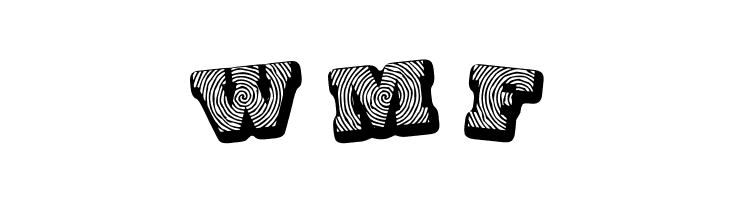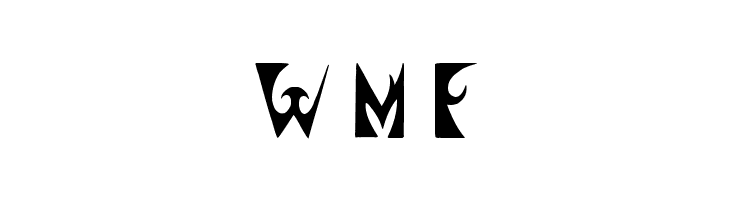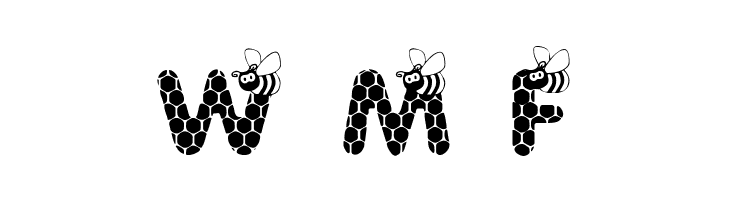
A decorative font with characters encased in butterfly designs, perfect for whimsical projects.
A whimsical font with characters encased in cartoon bear figures, perfect for playful designs.
A playful font with characters inside friendly ghost shapes, perfect for whimsical designs.
A whimsical font with characters inside bunny designs, perfect for festive projects.
A bold, playful font with thick strokes and rounded edges, ideal for impactful designs.
A playful, bubble-like font with interconnected circles, ideal for creative projects.
A whimsical font with unicorn and magical motifs, perfect for fantasy themes.
A bold, geometric font with a retro aesthetic, ideal for impactful designs.
A bold, dripping font with a melting effect, ideal for horror themes.
A bold, blocky font ideal for impactful headlines.
A playful, rounded font with a light and airy feel, perfect for adding personality.
A bold, decorative font with a Western flair, ideal for headlines and themed designs.
A spooky, playful font with jagged, uneven letters ideal for Halloween themes.
An elegant serif font with high contrast and italic style, perfect for sophisticated designs.
A bold, outline font with a dripping, eerie style perfect for horror themes.
A bold, dripping font ideal for horror and Halloween themes.
A bold, jagged font with dripping edges, ideal for horror themes.
A bold, outlined font with a strong geometric structure, perfect for impactful designs.
A bold, jagged, and distressed font ideal for horror-themed designs.
A spooky, hand-themed font with bold, angular letters perfect for horror designs.
A bold, horror-themed font with a dripping effect, perfect for spooky designs.
A bold, condensed font with a modern and clean aesthetic, perfect for impactful headlines.
A bold, heart-themed font perfect for romantic and playful designs.
A spooky, decorative font with jagged edges and eerie cutouts, perfect for Halloween themes.
A bold, playful font with a unique spiral pattern, ideal for creative projects.
A bold, decorative font with a wood grain texture, ideal for rustic and organic designs.
A creepy, dripping font perfect for horror themes.
A bold, decorative font with a retro halftone pattern, perfect for eye-catching designs.
A dotted cursive font with directional arrows, perfect for handwriting practice.